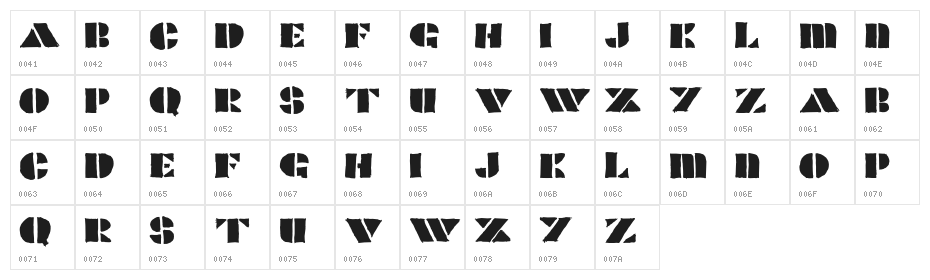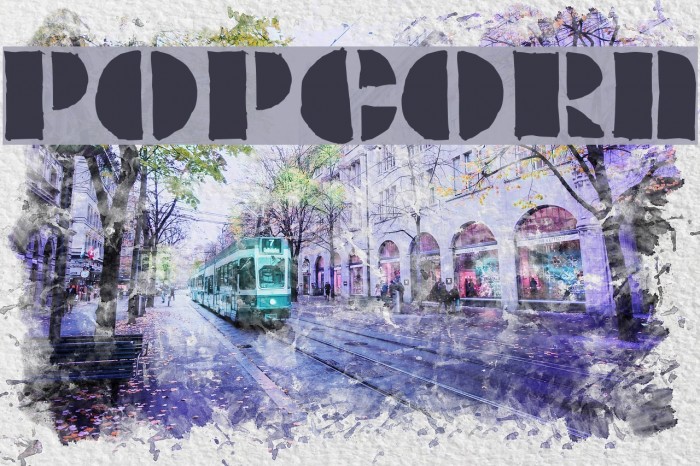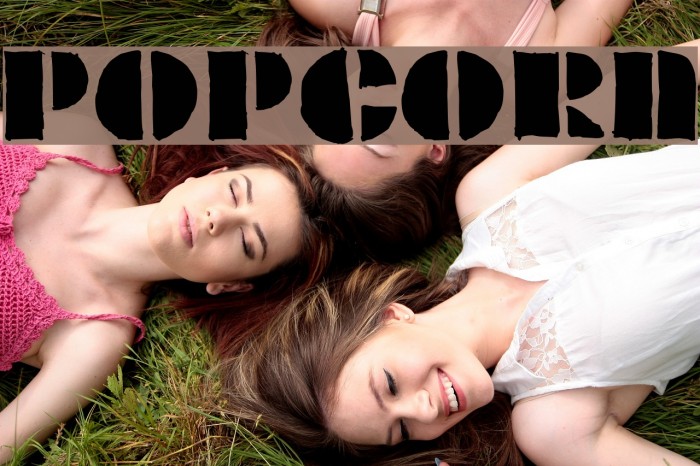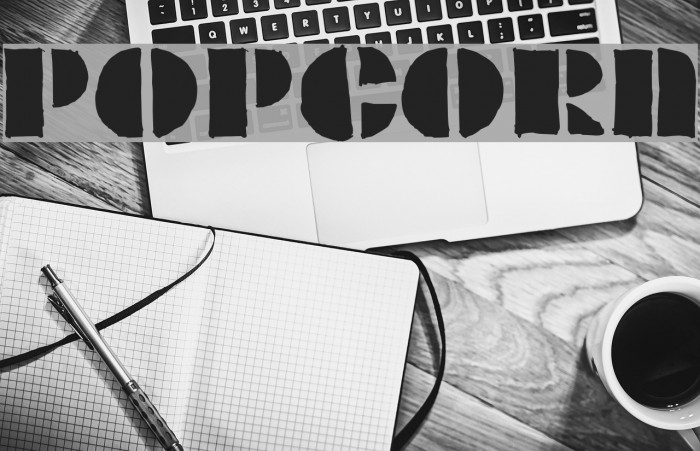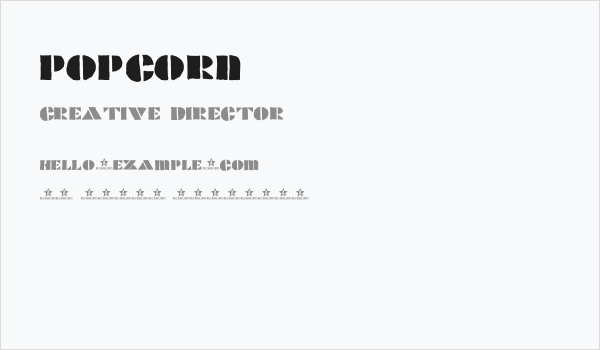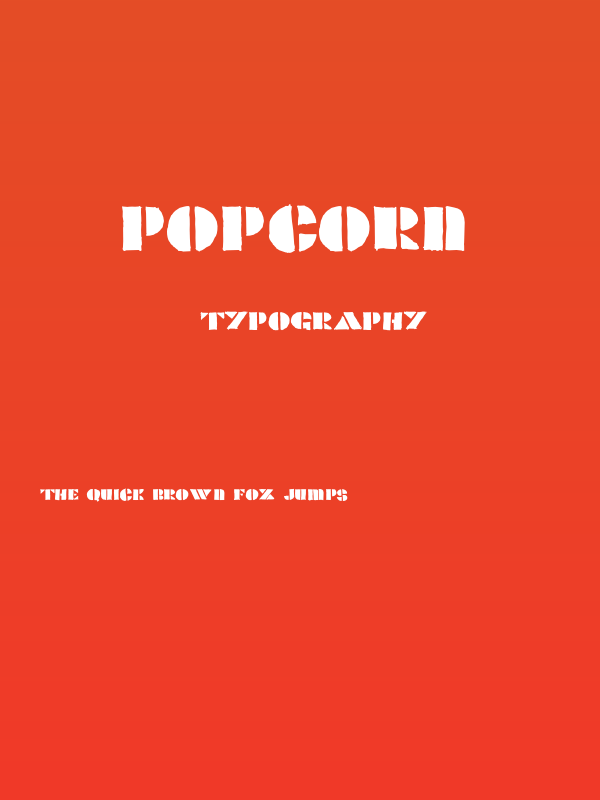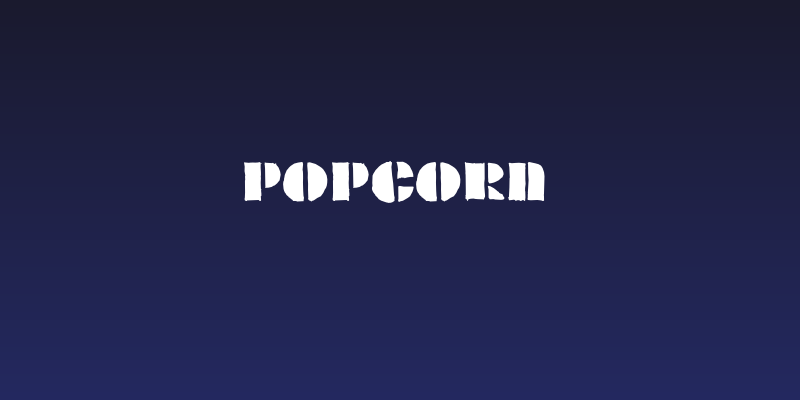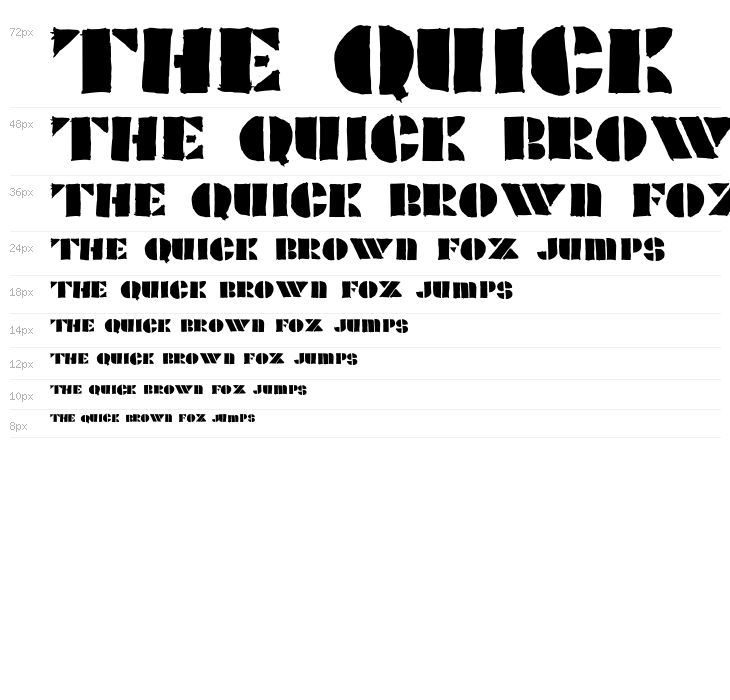
POPCORN Font
POPCORN Description
This font features a bold, stencil-like design with a distinct, rugged appearance. The characters are constructed with sharp, angular cuts and a slightly distressed texture, giving it a unique, industrial feel. The uppercase letters are particularly striking, with a strong presence that commands attention. The font's style is reminiscent of vintage military or industrial signage, making it ideal for projects that require a bold, impactful look. The spacing between characters is tight, enhancing its compact and cohesive appearance. The overall style is decorative and eye-catching, suitable for creative and bold design projects.
| Overall Style | Vintage, Industrial |
| Proposed Projects | Ideal for posters, logos, branding, and any design requiring a strong, impactful presence. |